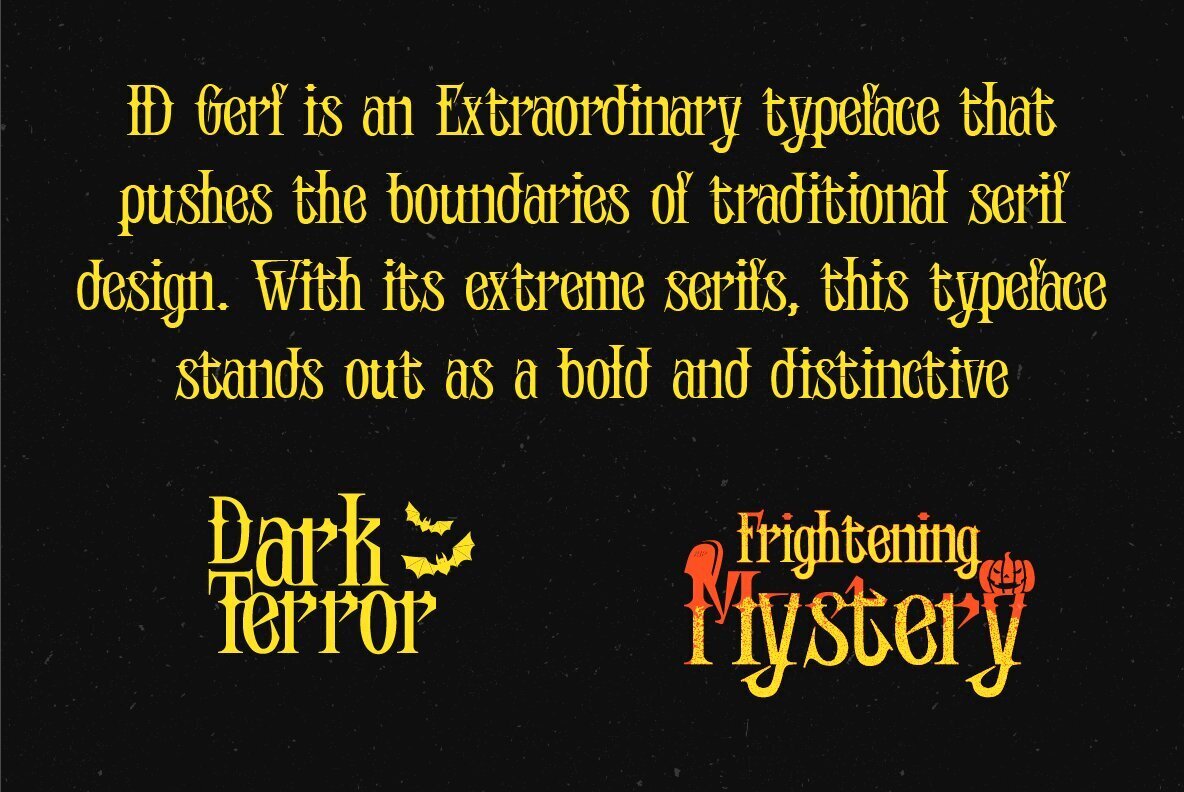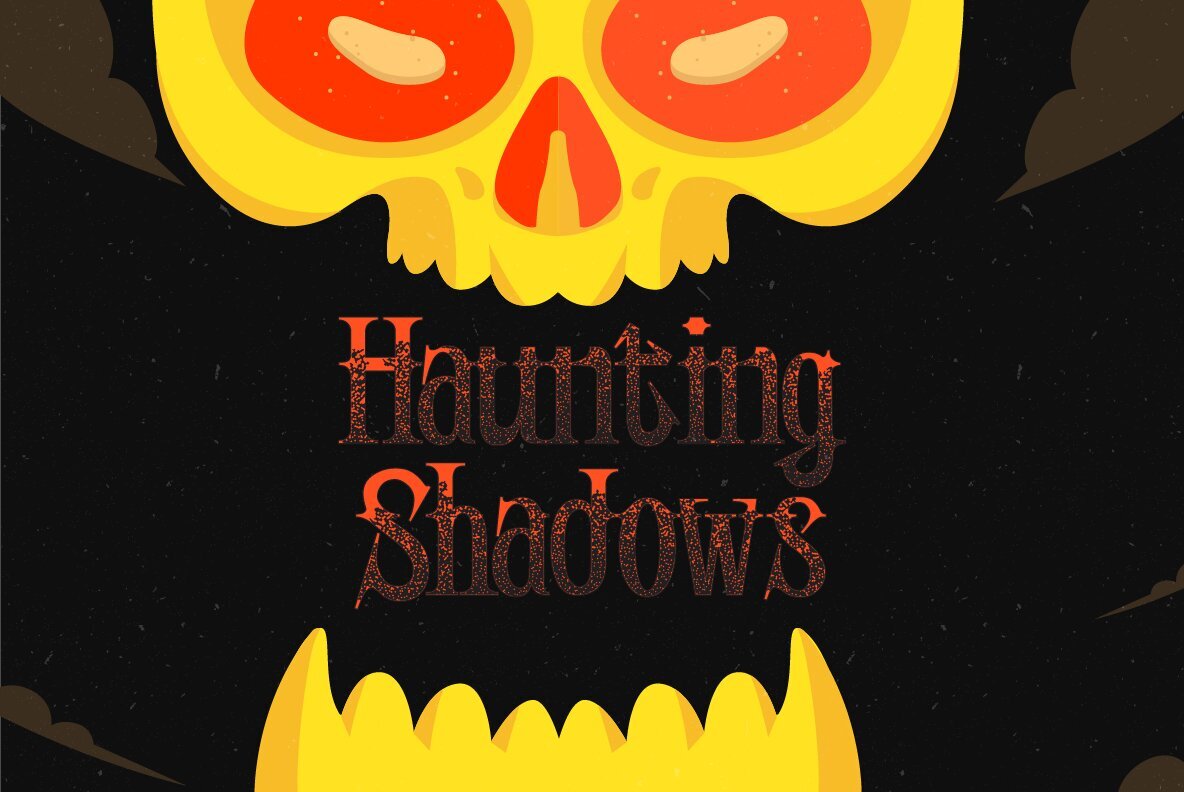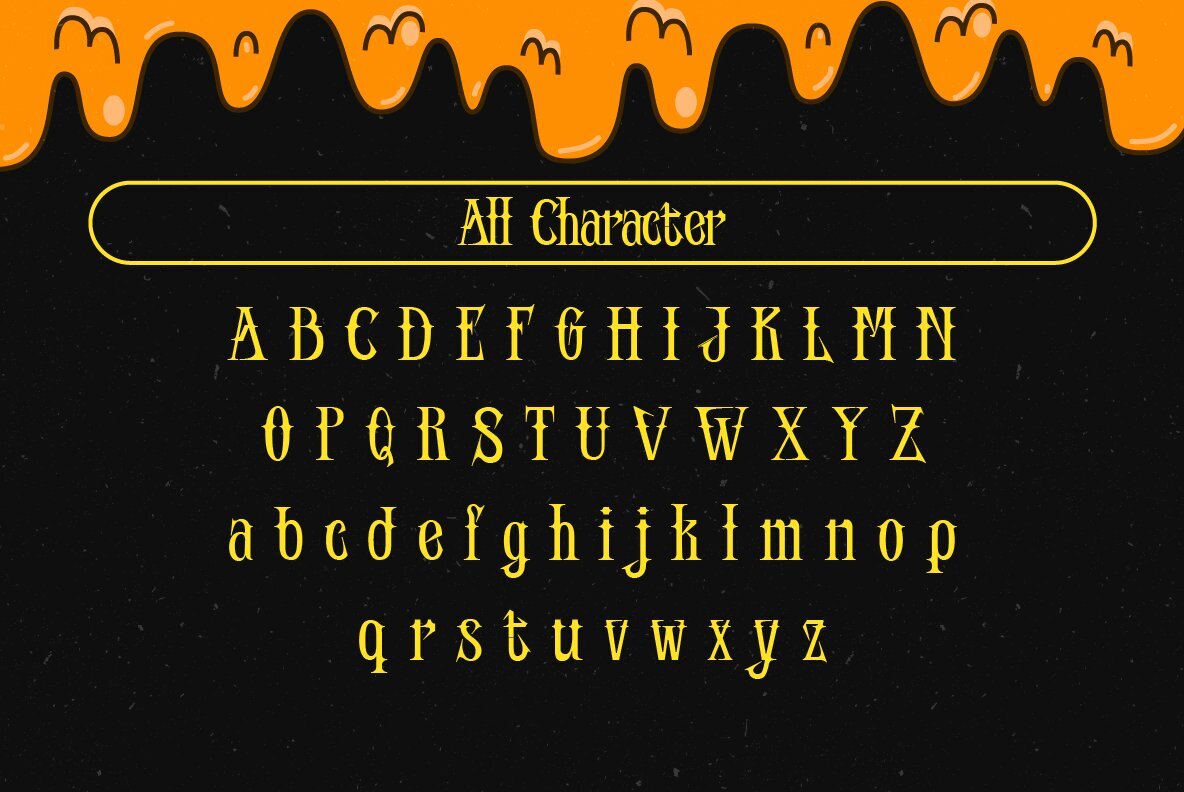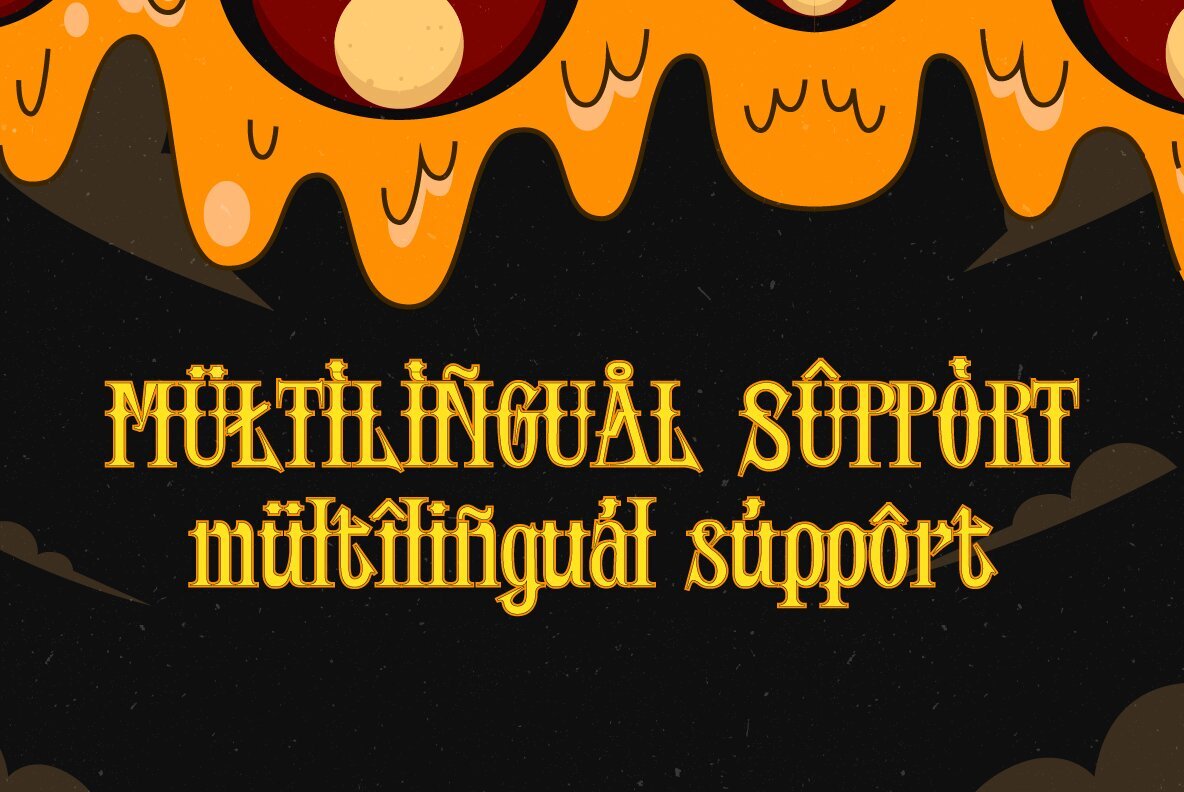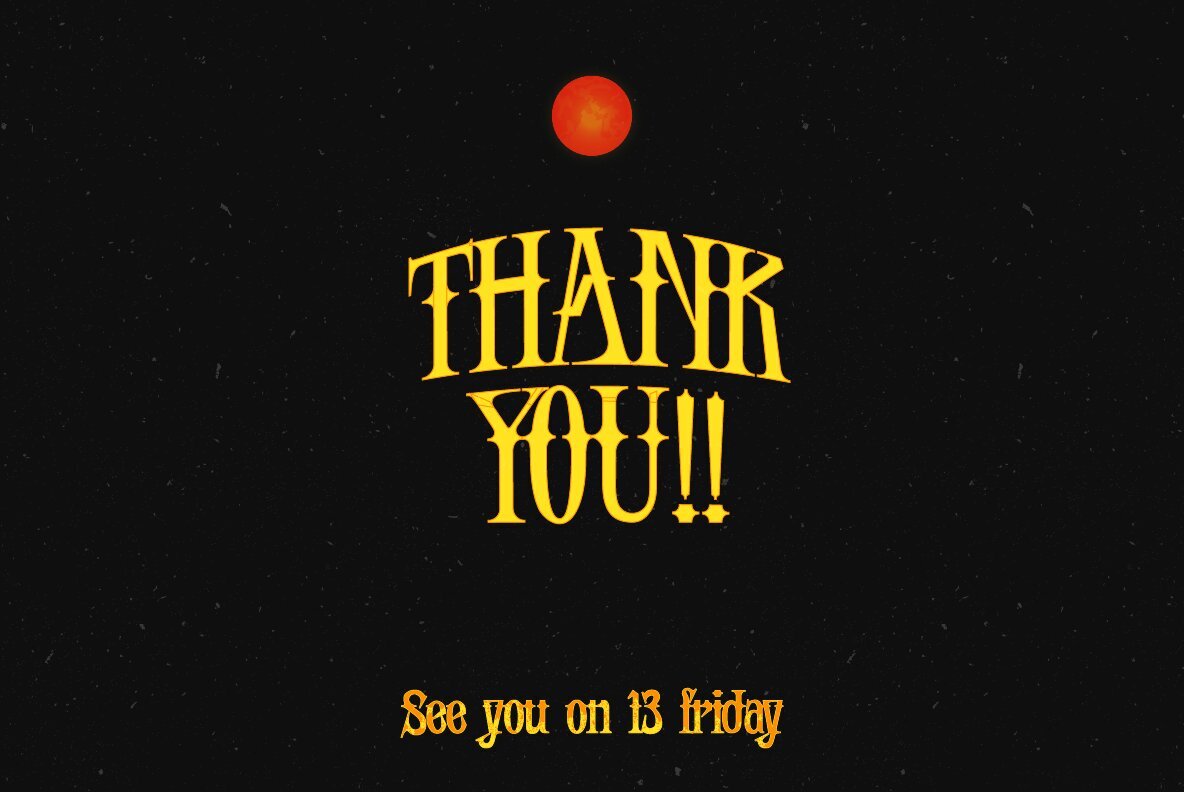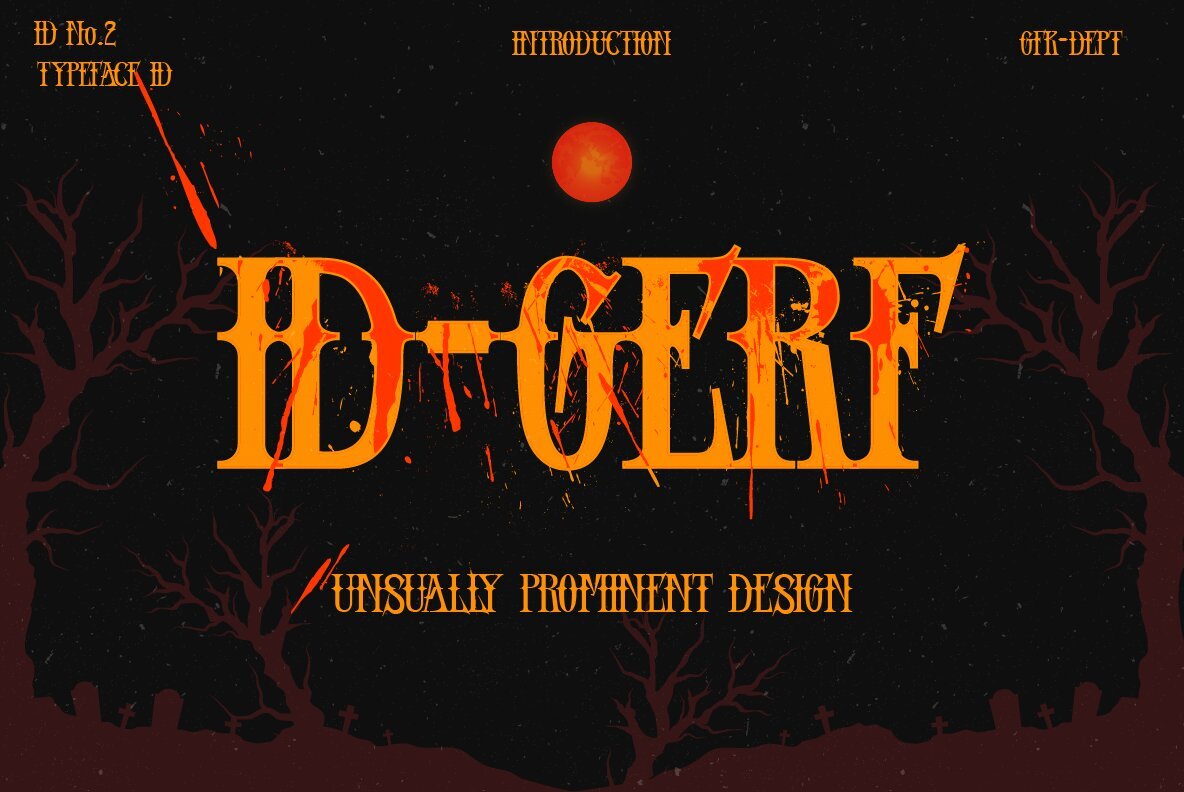
ID Gerf Font
ID Gref Regular
ID Gerf is a typeface that pushes the boundaries of traditional serifs, embracing an "extreme serif" design. Characterized by bold, dramatic serifs that extend prominently from the letterforms, ID Gerf adds a distinctive and impactful flair to your typography. The exaggerated serifs create a sense of sophistication and uniqueness, making this font a bold choice for headlines, logos, and other prominent design elements.